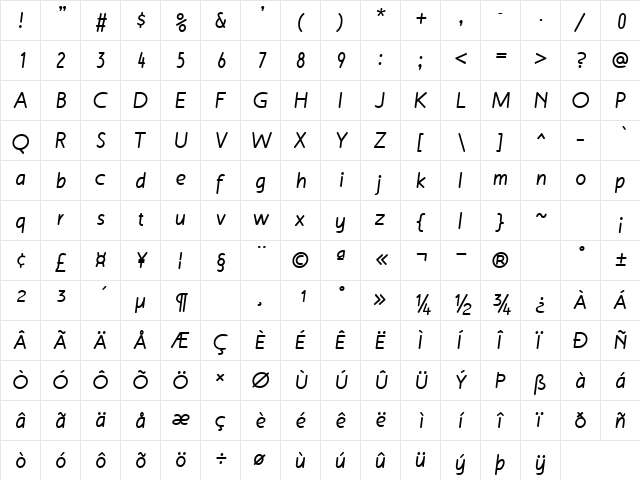
Malvern LF Bold Italic
Design Context for Malvern LF Typeface
Malvern LF offers clean, dependable letterforms without strong stylistic allegiance, making it a practical choice for designers who need flexibility. Its italic angle brings a sense of urgency and motion to the letterforms. The heavy weight commands attention and anchors typographic hierarchies.